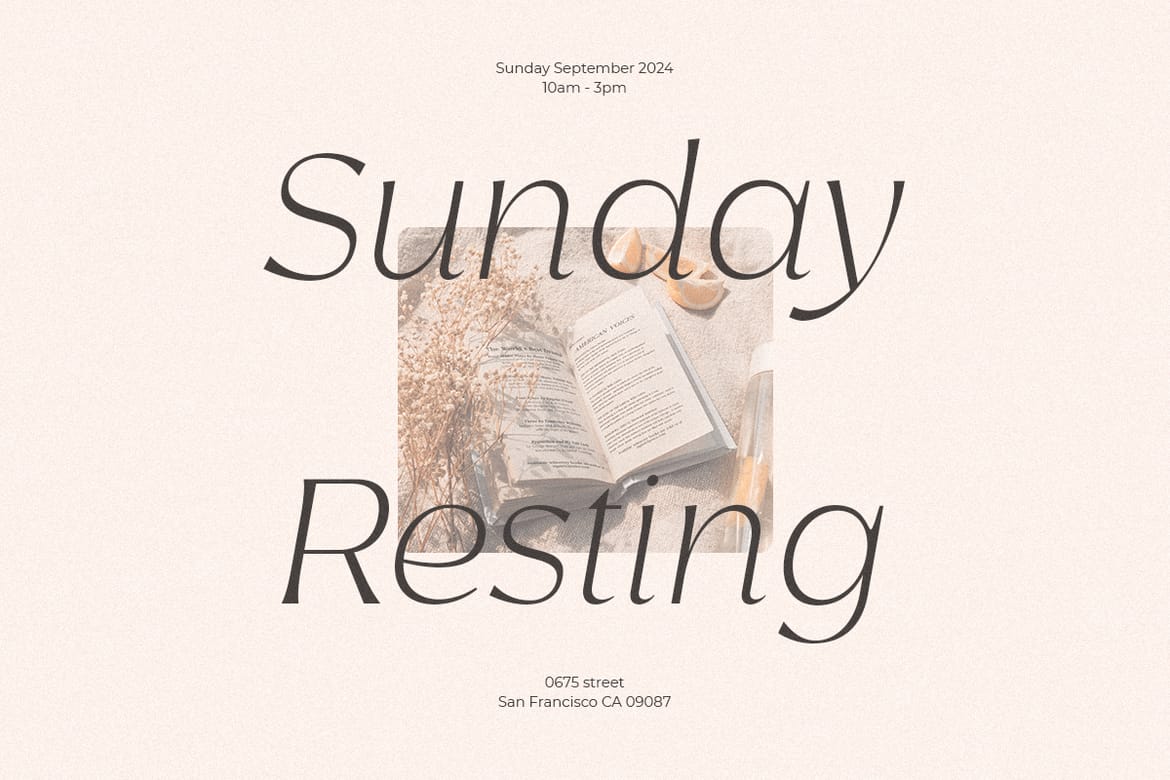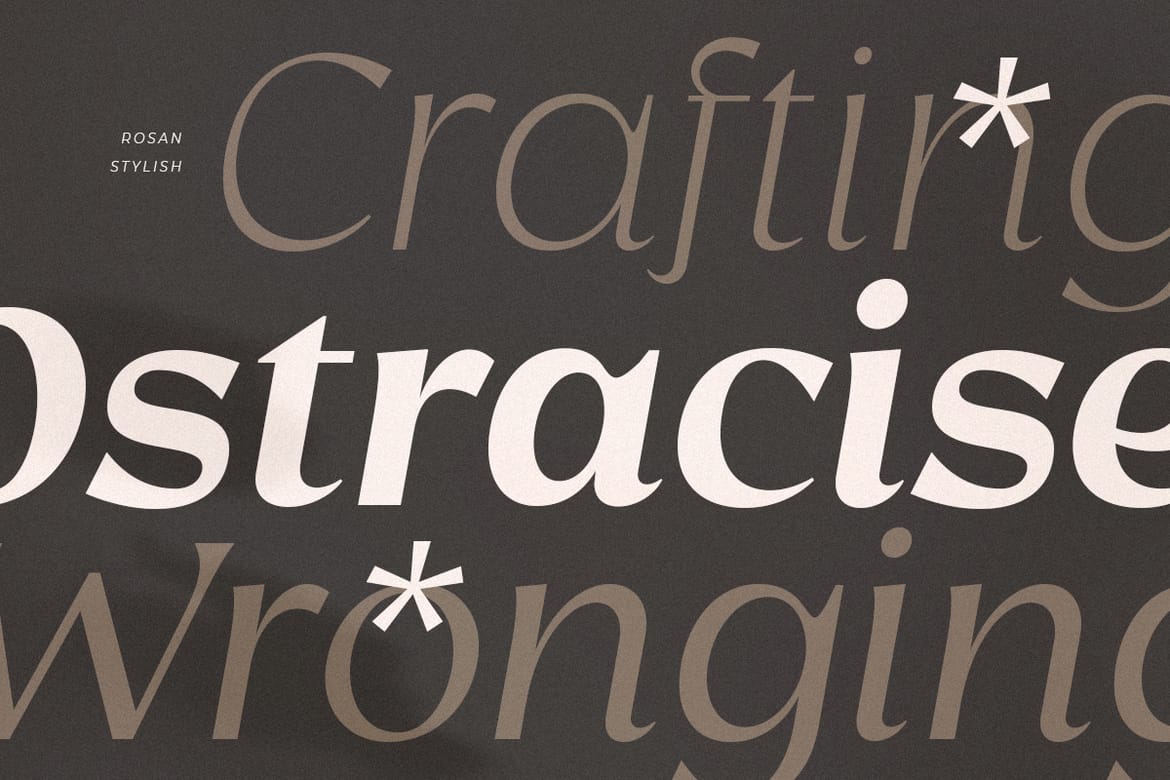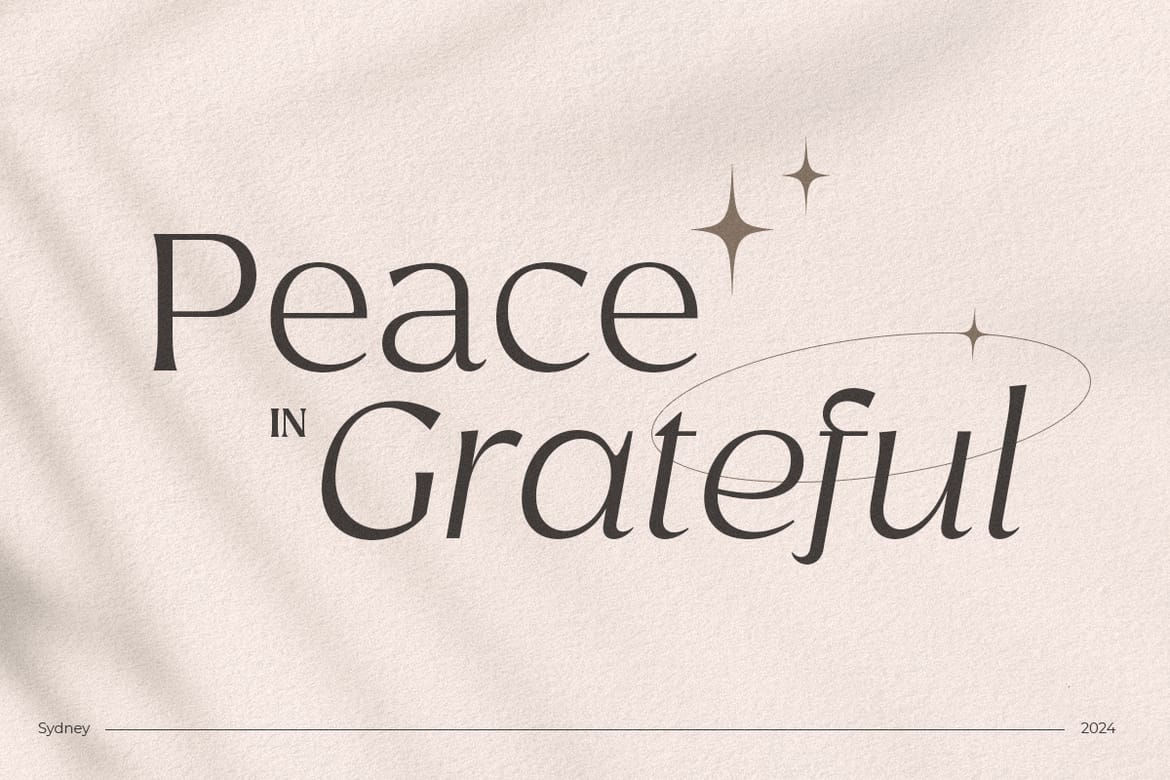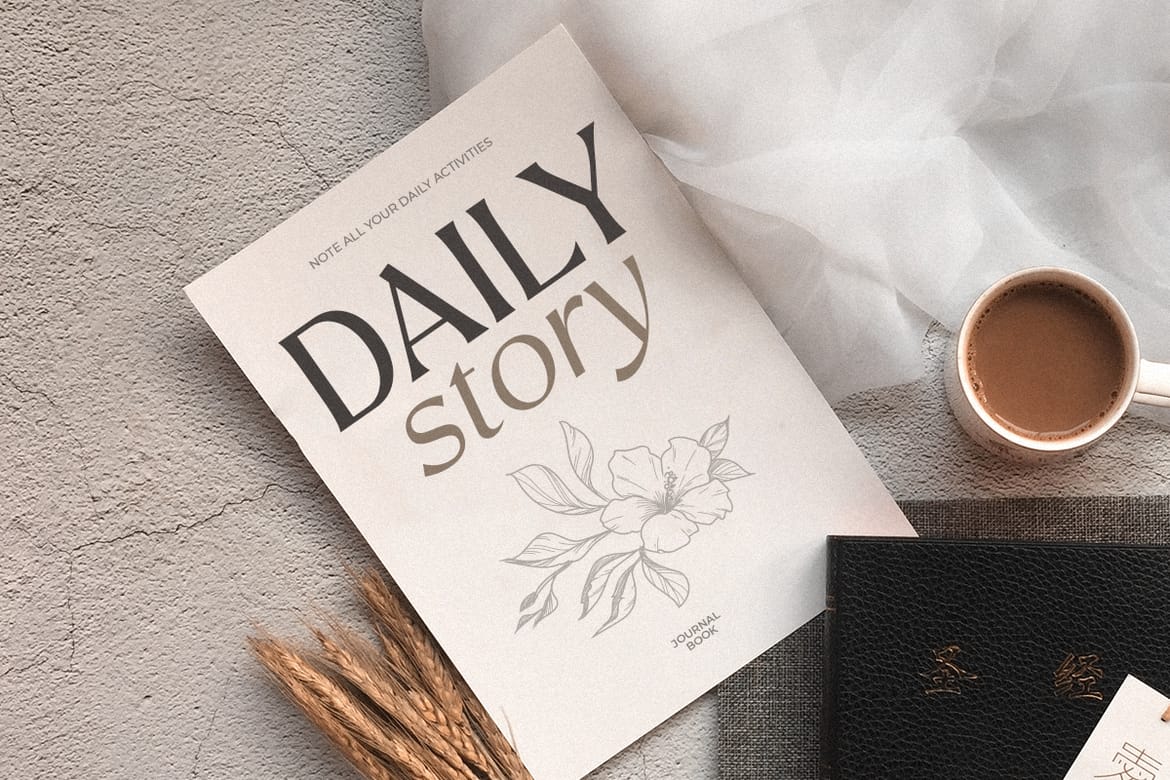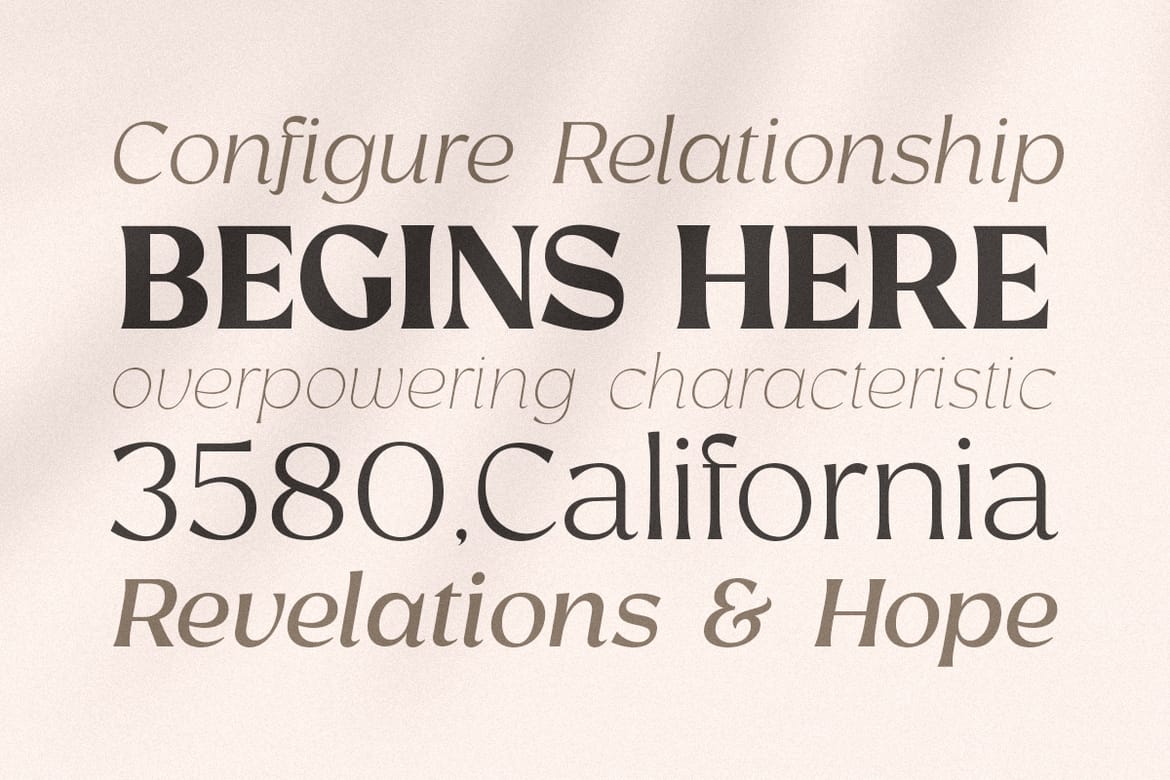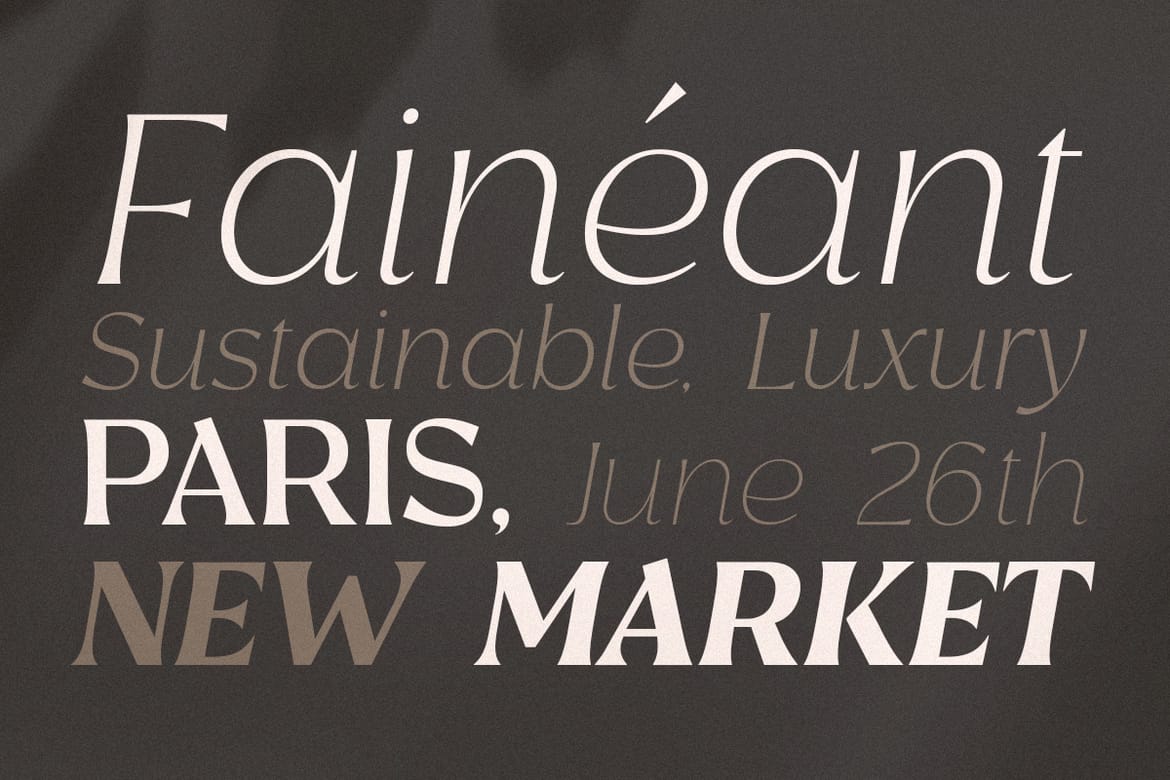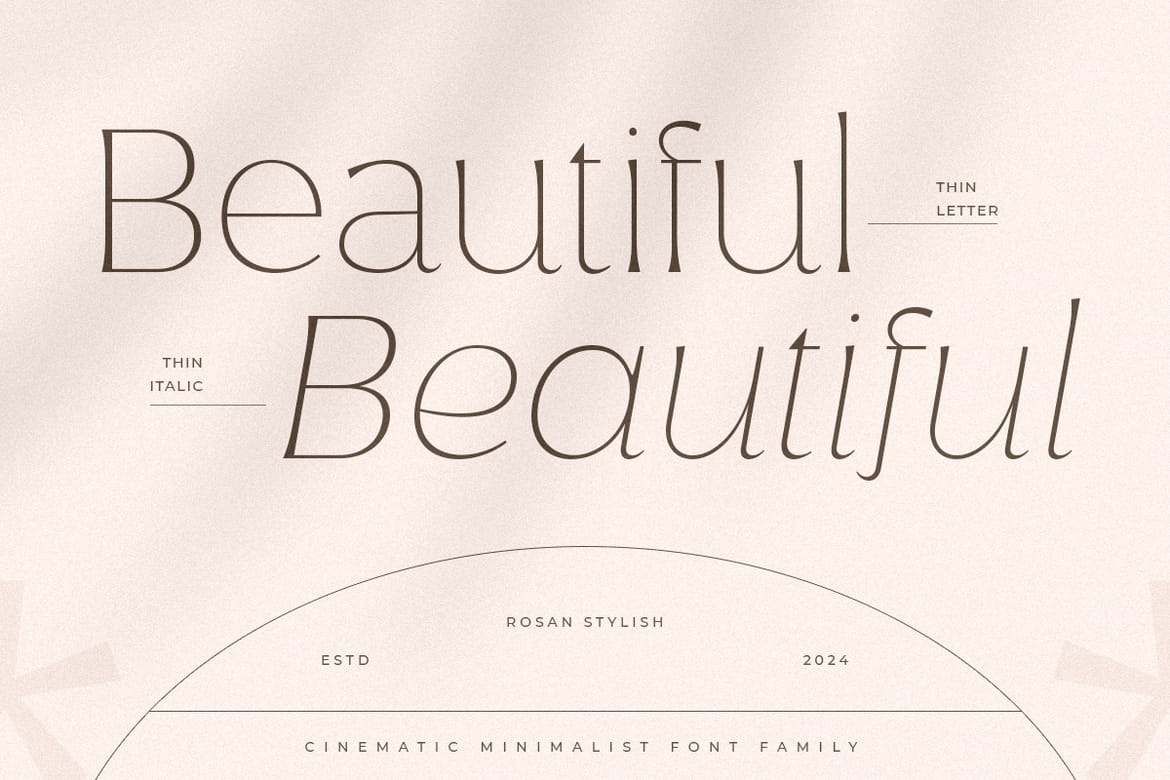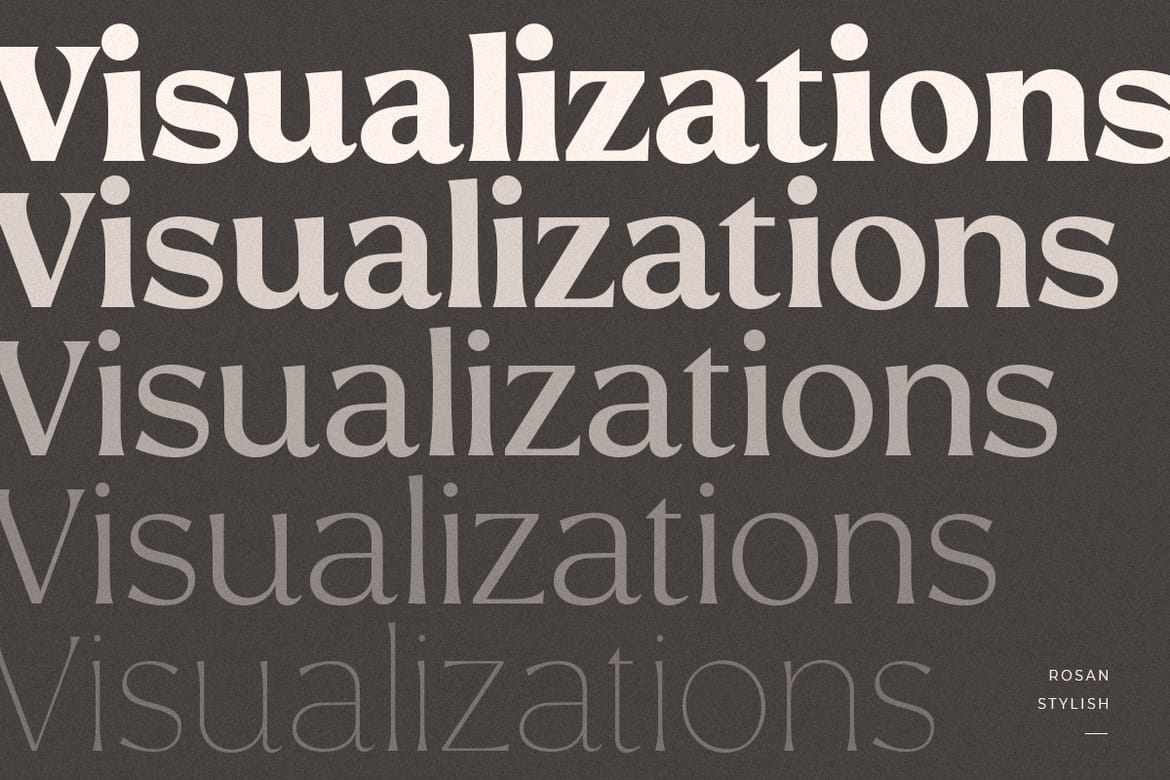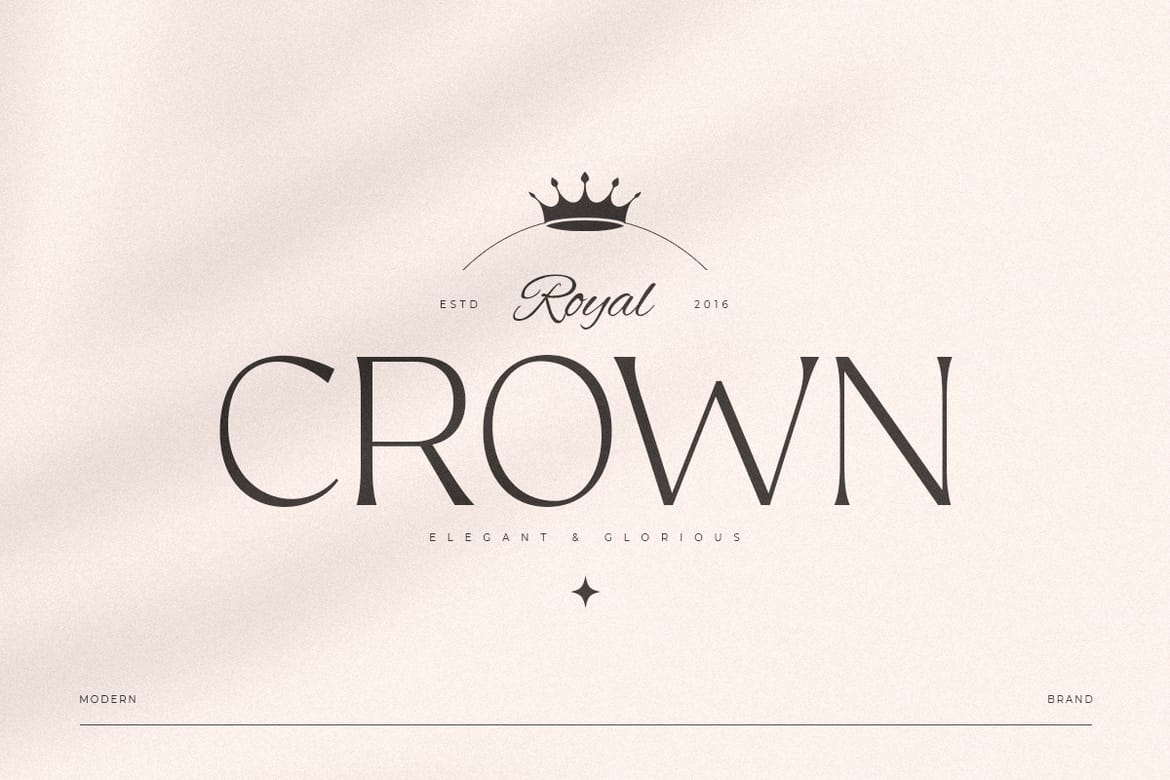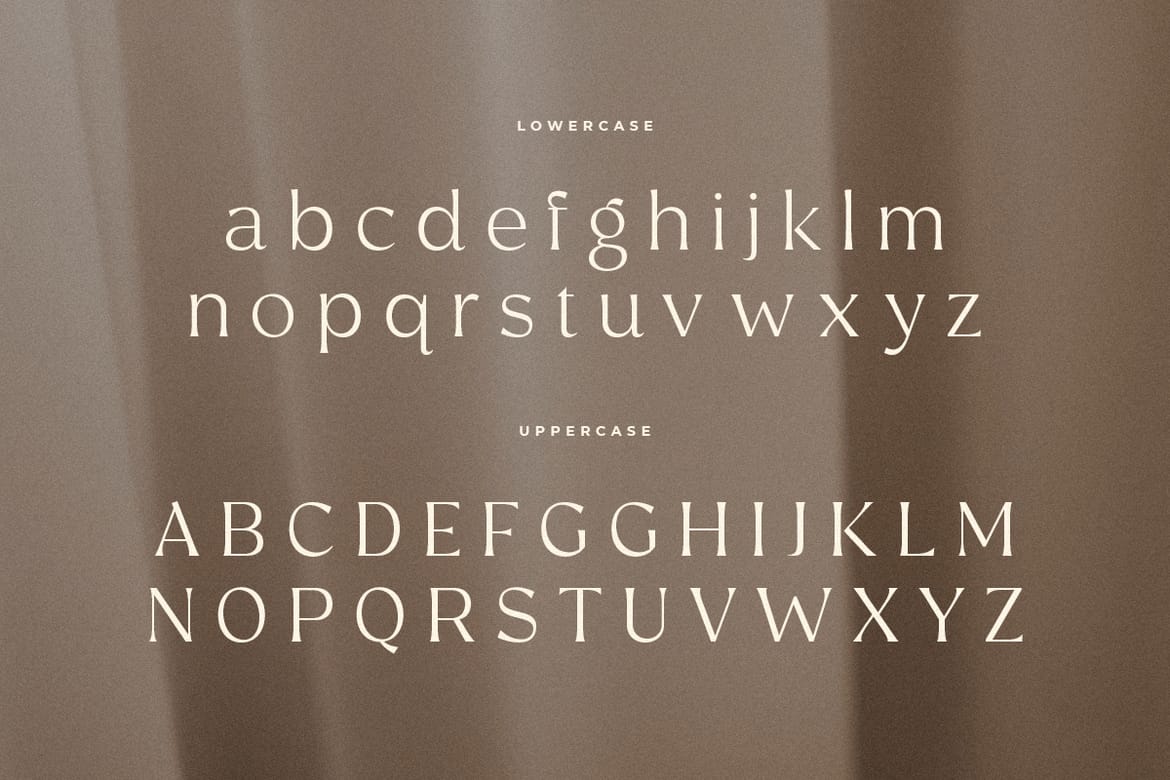
Rosan Stylish - Minimalist Font
Rosan Stylish is a cinematic minimalist font designed to bring elegance and sophistication to your high-end design projects. Inspired by the timeless beauty of classic cinema, Rosan Stylish combines modern aesthetics with a touch of vintage glamour. Ideal for creating stunning logos and refined branding materials, this font is perfect for designers who want to make a bold statement with their work. What's Included: Ready with 18 Styles 4 Format File type for each style (OTF/TTF/WOFF/WOFF2) Character set A-Z Numerals & Punctuation Accented Characters (West Europe) Works on PC & Mac
• 18 cinematic minimalist styles
• Ideal for luxury branding & logos